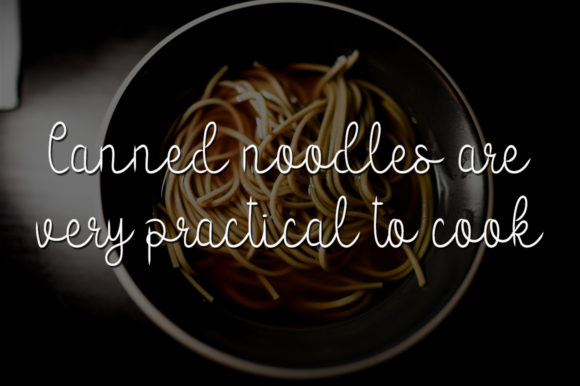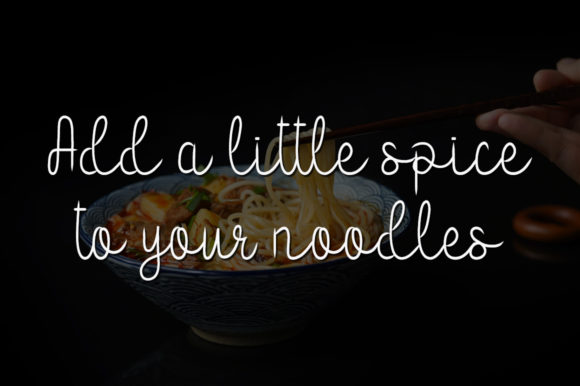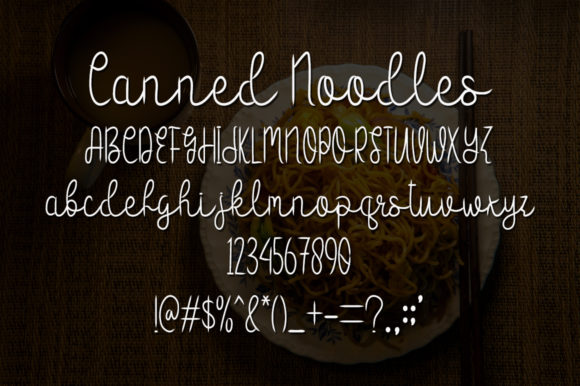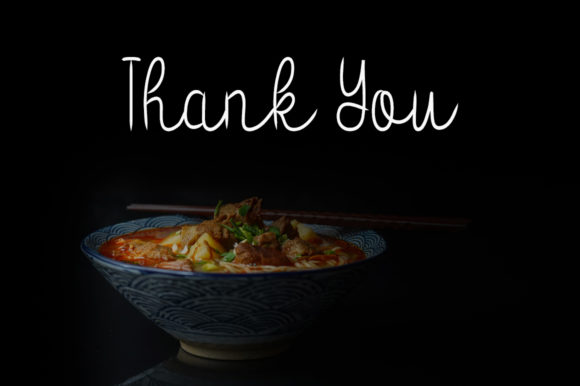
Canned Noodles Font
About Canned Noodles Font
Canned Noodles is a neat and flowing handwritten font. It is suitable for any branding, product packaging, invitation, quote, t-shirt, label, poster, logo that you wish to develop.